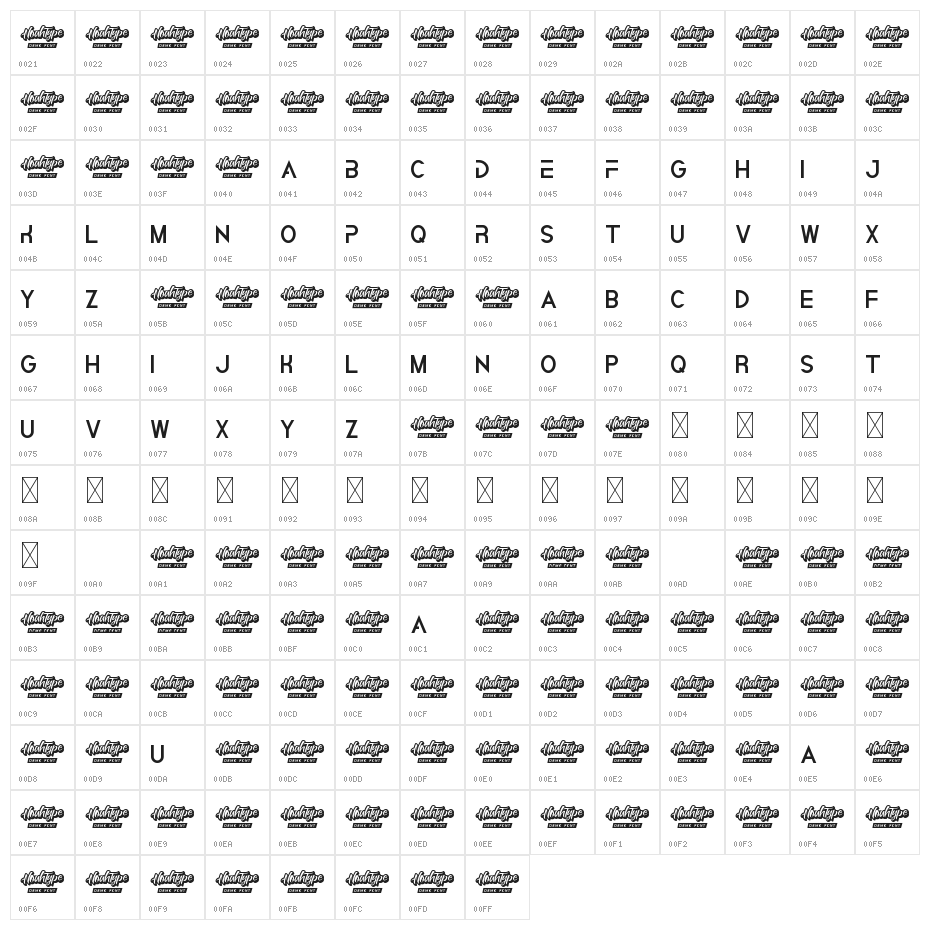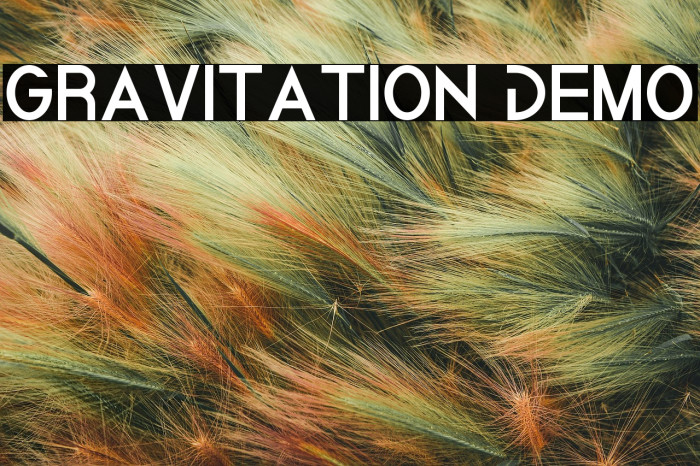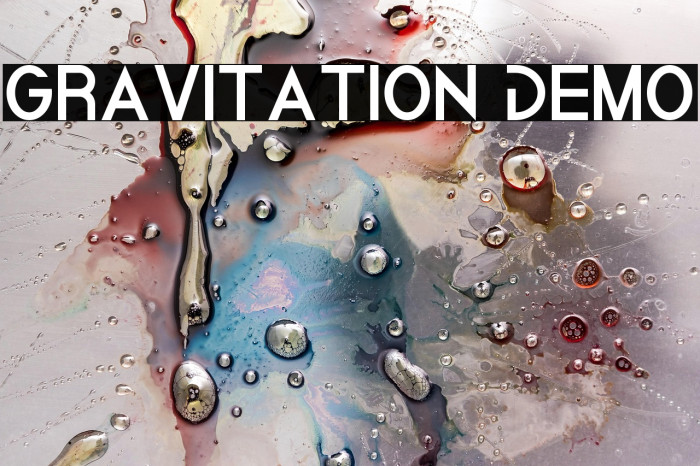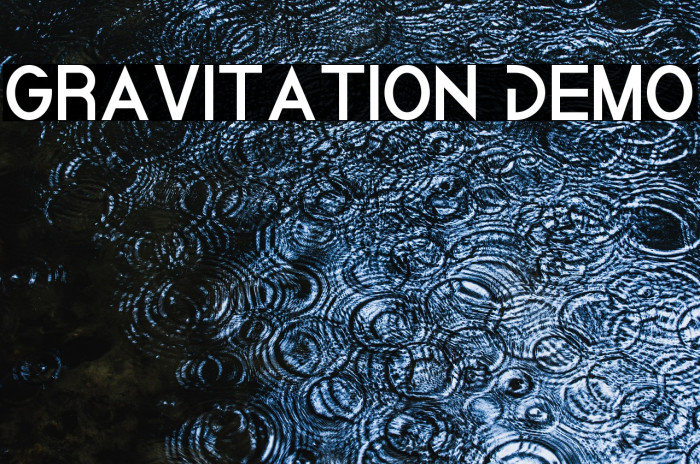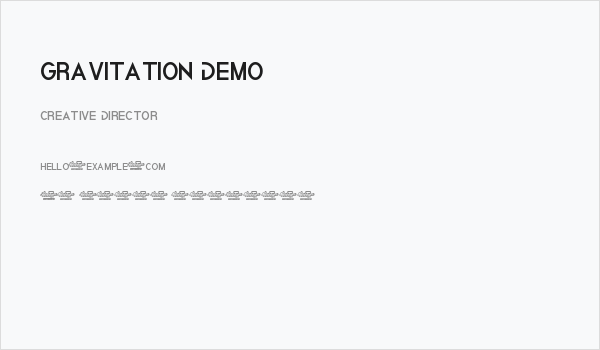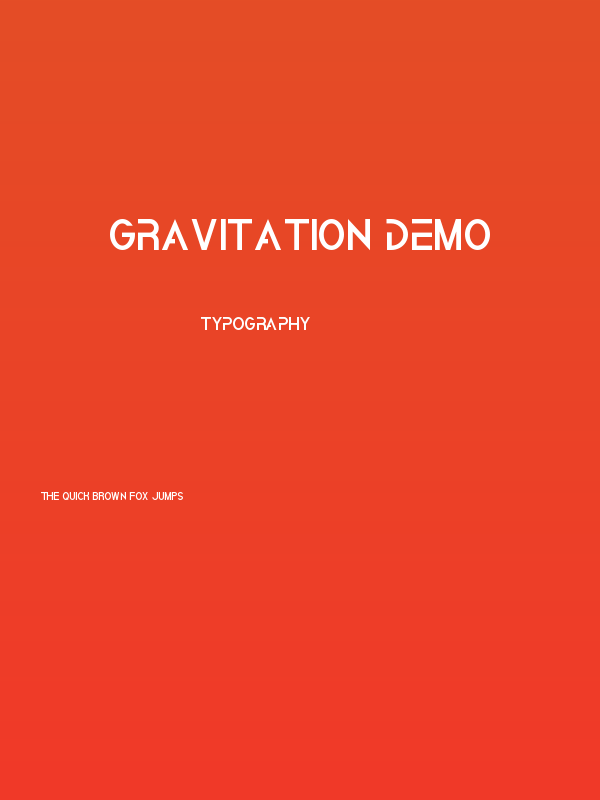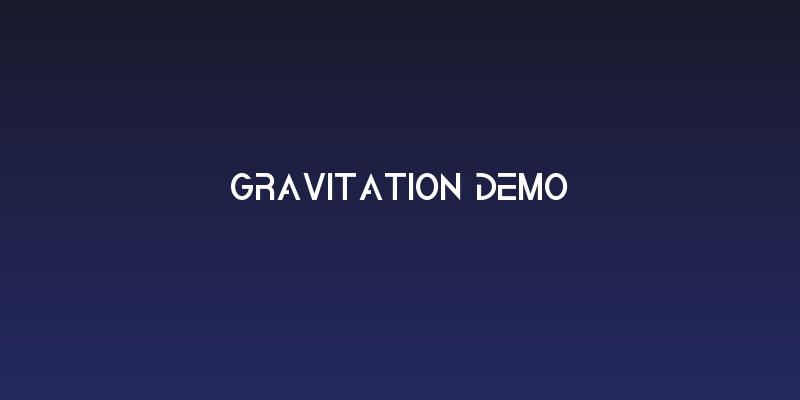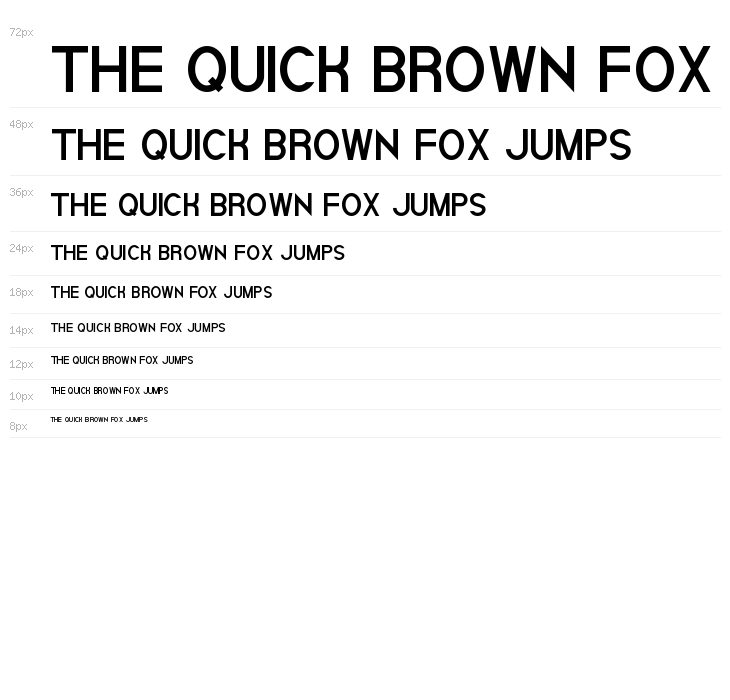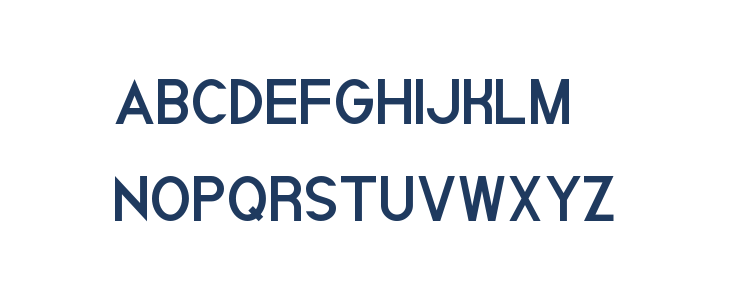
Gravitation Demo Font
Gravitation Demo Description
This typeface features a bold and geometric design, characterized by its clean lines and sharp angles. The uppercase letters are uniform in height, creating a cohesive and structured appearance. The font's modern aesthetic is enhanced by its consistent stroke width, giving it a strong and impactful presence. The absence of serifs contributes to its contemporary feel, making it suitable for a variety of digital and print applications. The characters are well-spaced, ensuring readability and clarity, even at smaller sizes. Its simplicity and boldness make it an excellent choice for projects that require a modern and assertive look.
| Proposed Projects | Ideal for branding, headlines, posters, and digital media where a strong and modern impression is desired. |